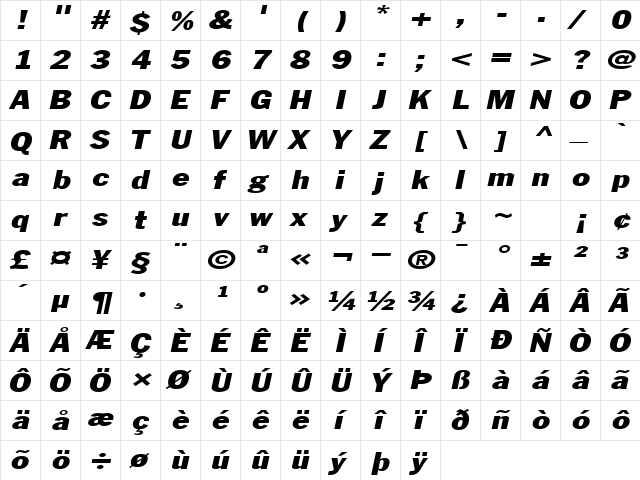
LibraryGothicHeavyExtended Italic
Design Context for LibraryGothicHeavyExtended Typeface
LibraryGothicHeavyExtended takes a clean, functional approach — its unadorned letterforms prioritise legibility and work reliably across screen and print environments. Its italic angle brings a sense of urgency and motion to the letterforms.
Font Pairing: Works well alongside a characterful serif or display font that can carry the expressive load while LibraryGothicHeavyExtended handles the functional copy.
Pro Tip: Use LibraryGothicHeavyExtended for UI labels, navigation, and short-form body copy where clean legibility is the priority.